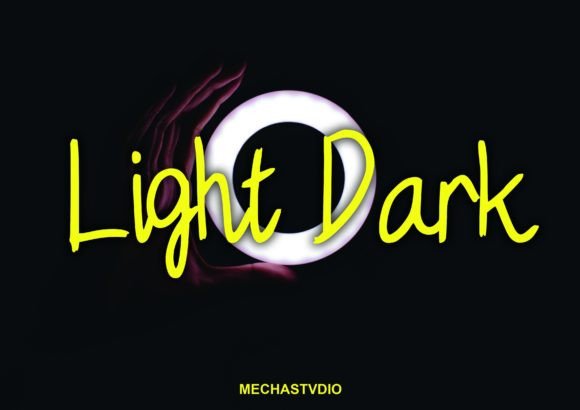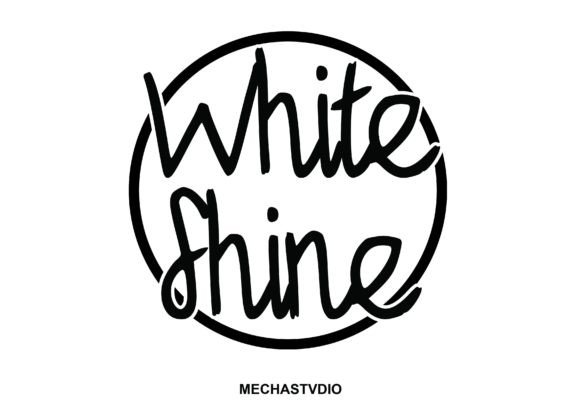
Introduction to Fachren Font
Fachren is a simple and light handwritten font with a unique feel and a stunning impact.
It will add a natural spark to any design project that you wish to create .
Key Features of Fachren Font
Why Choose Fachren Font?
Fachren Font offers exceptional quality and versatility, making it a valuable addition to your design toolkit. Whether you’re creating for personal projects or commercial use, Fachren Font delivers professional results.